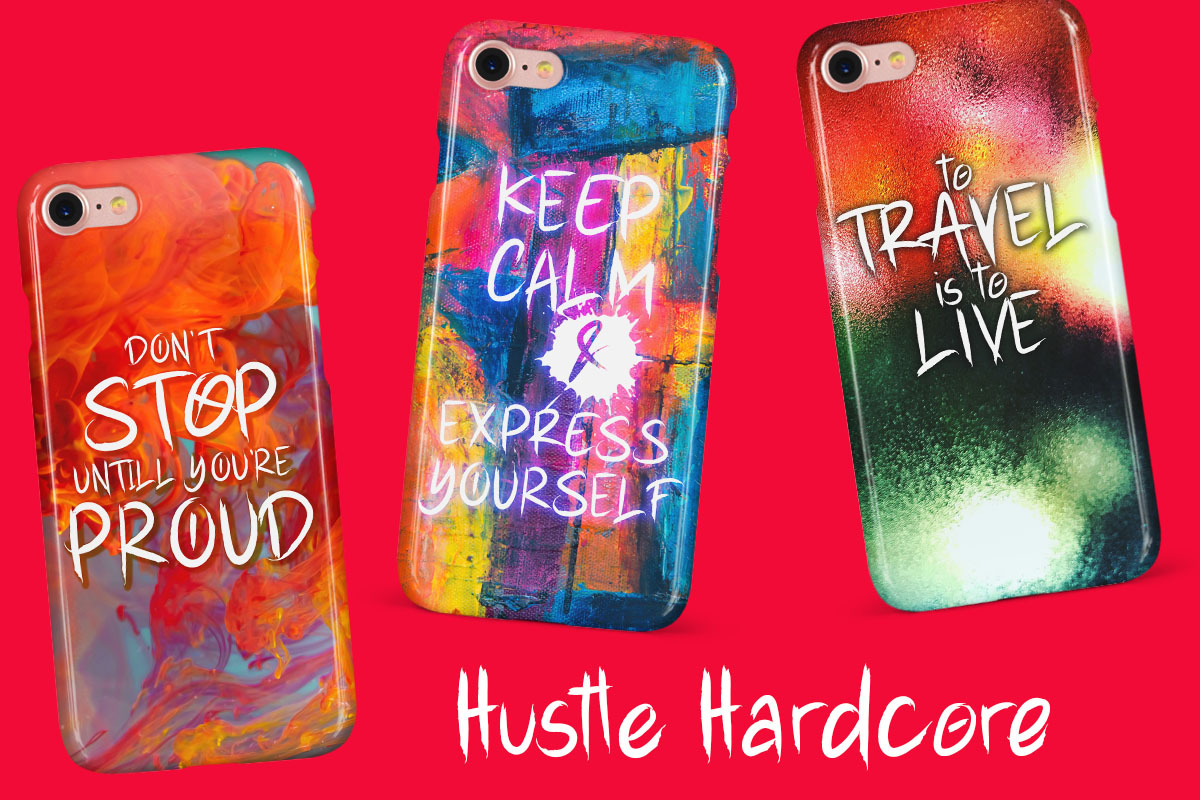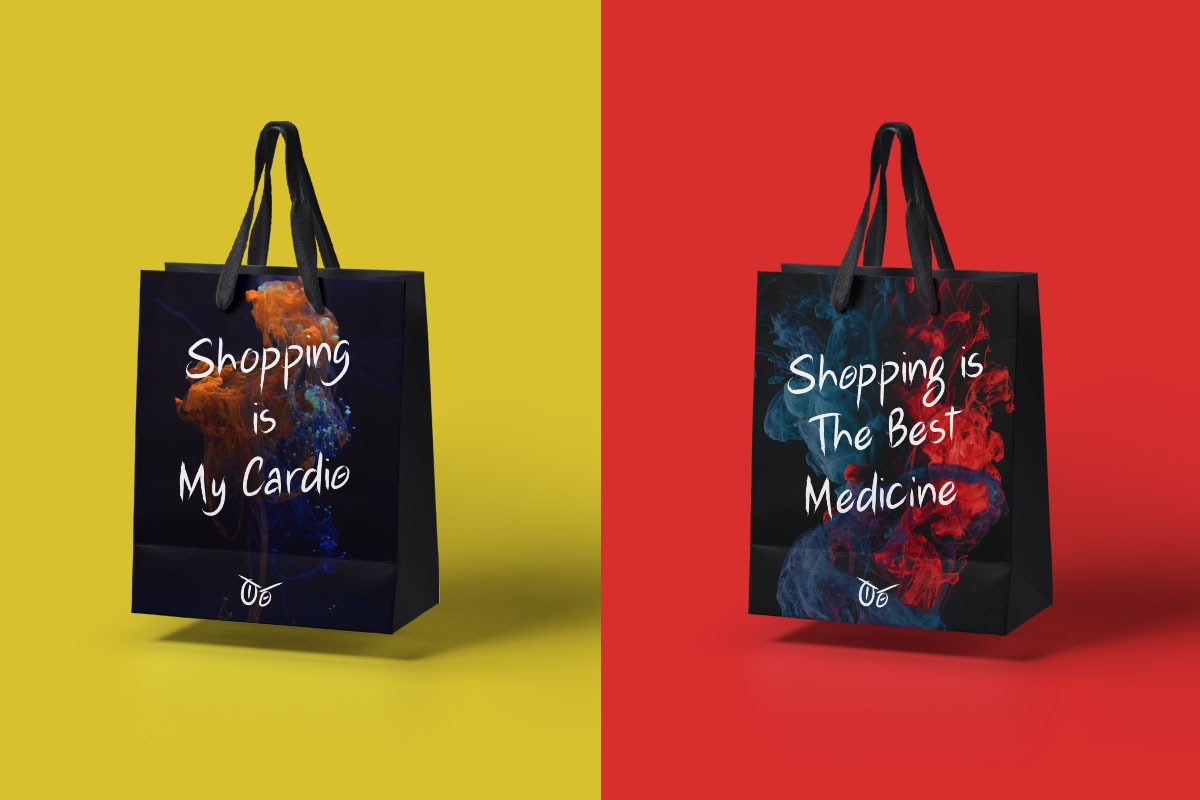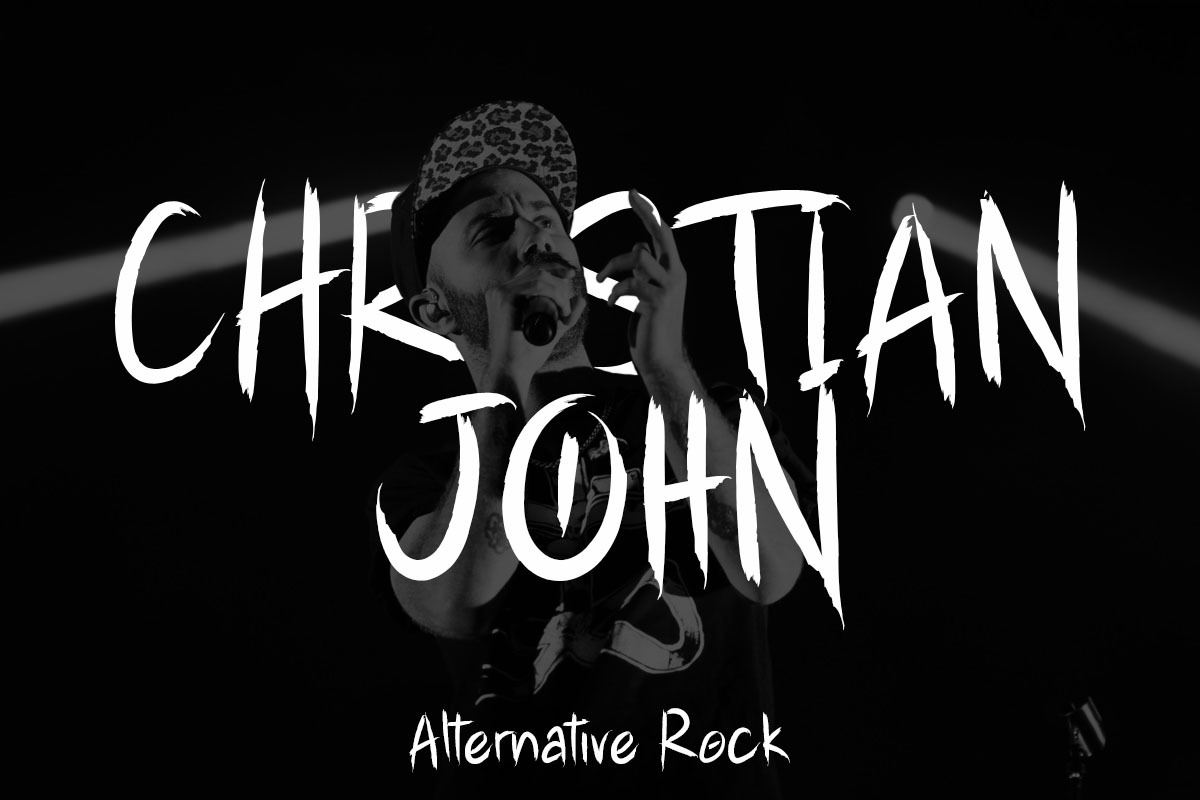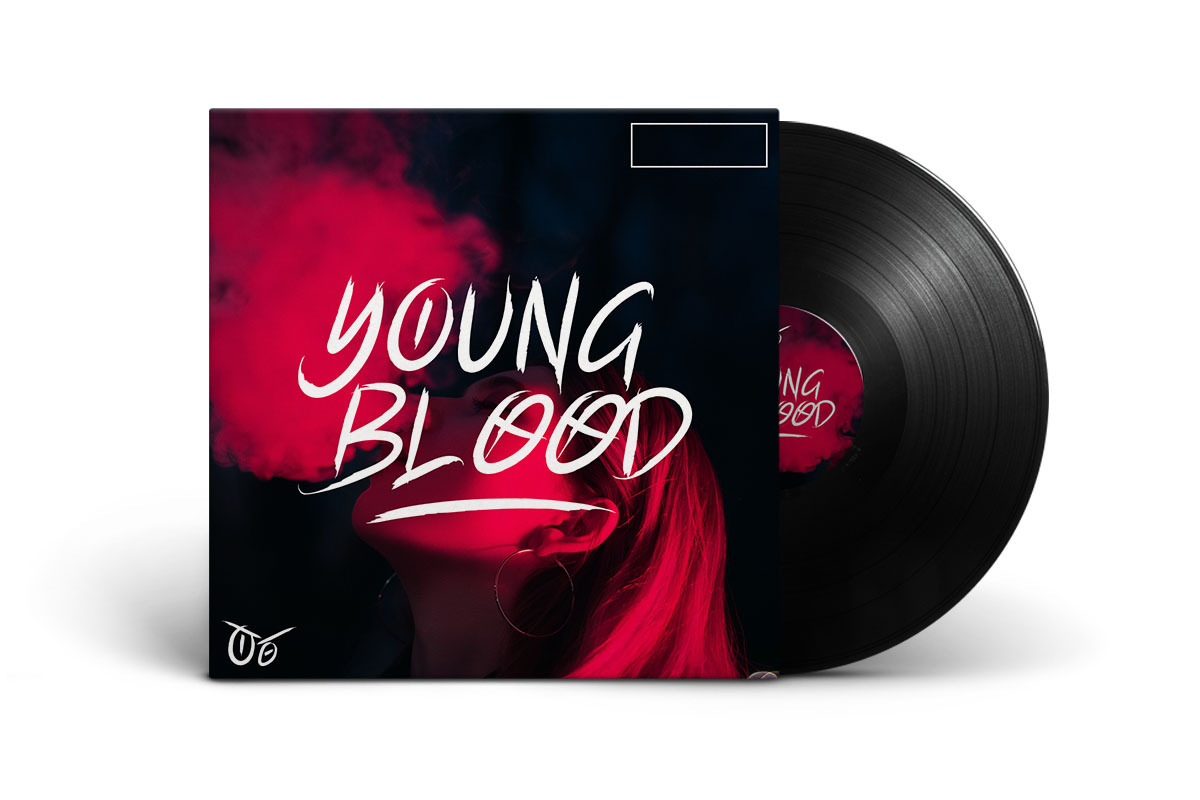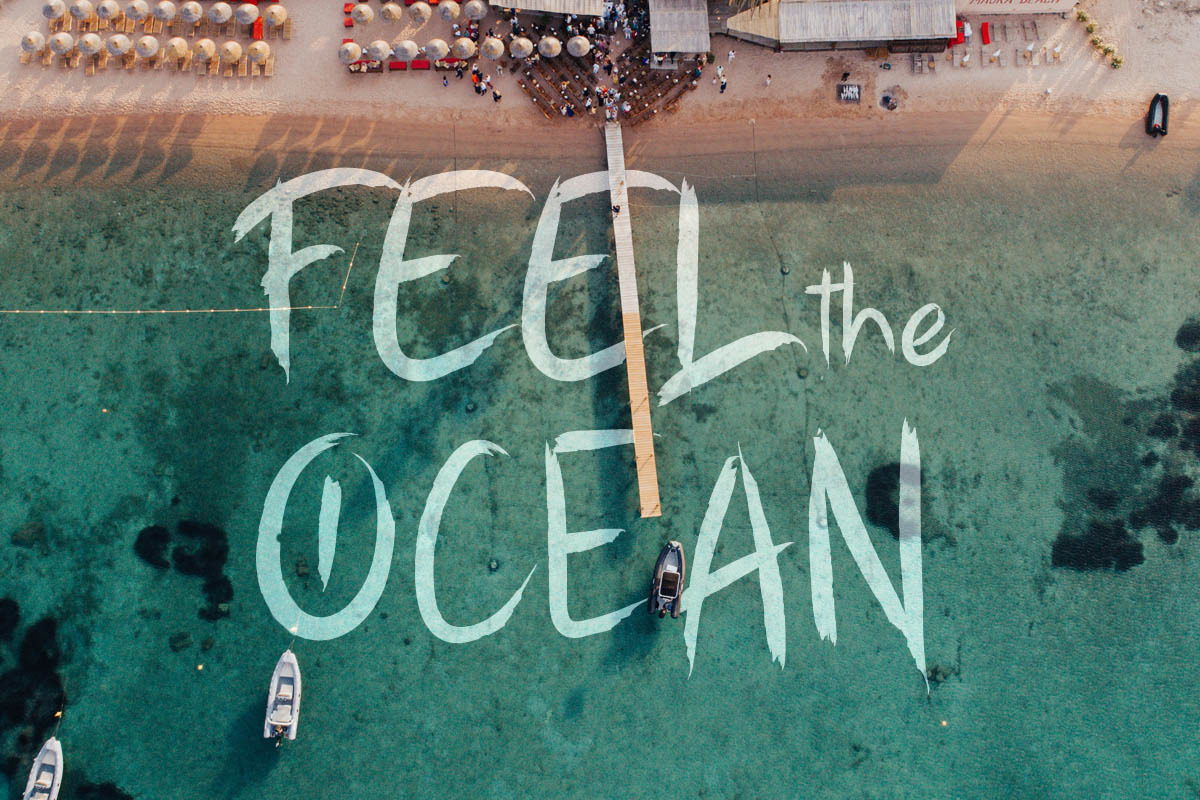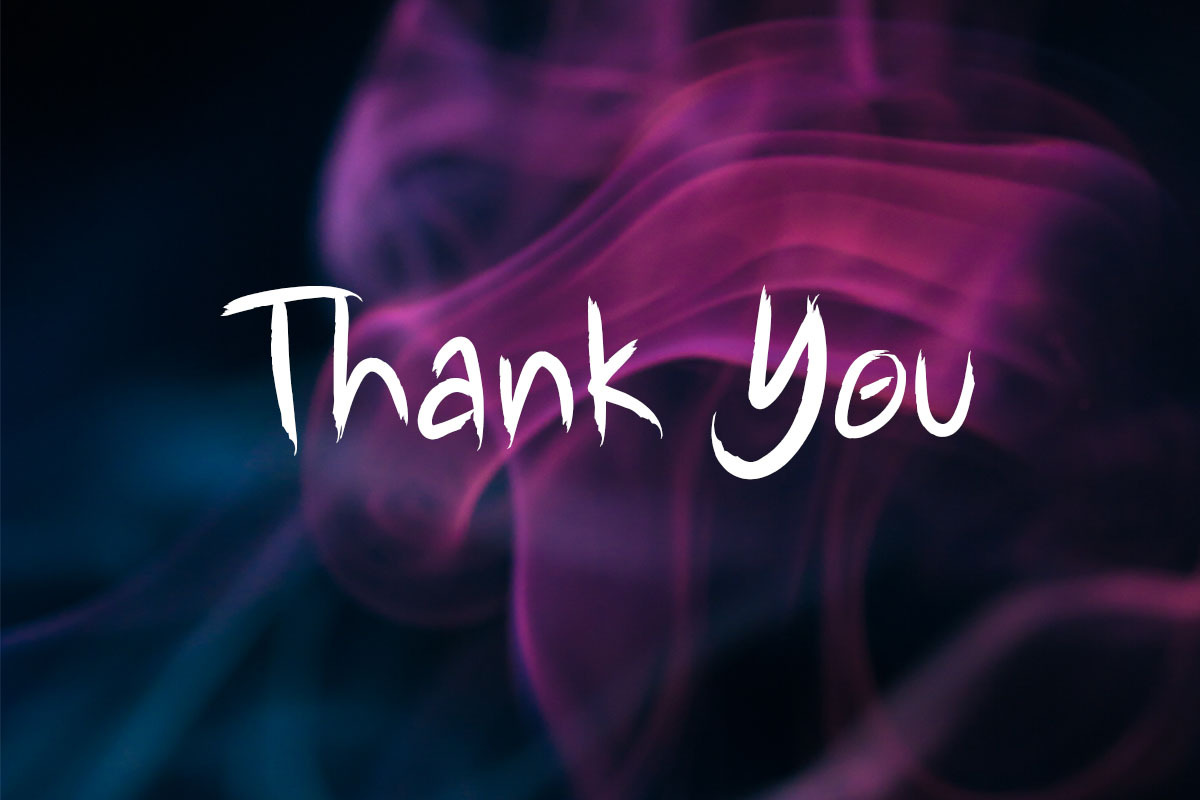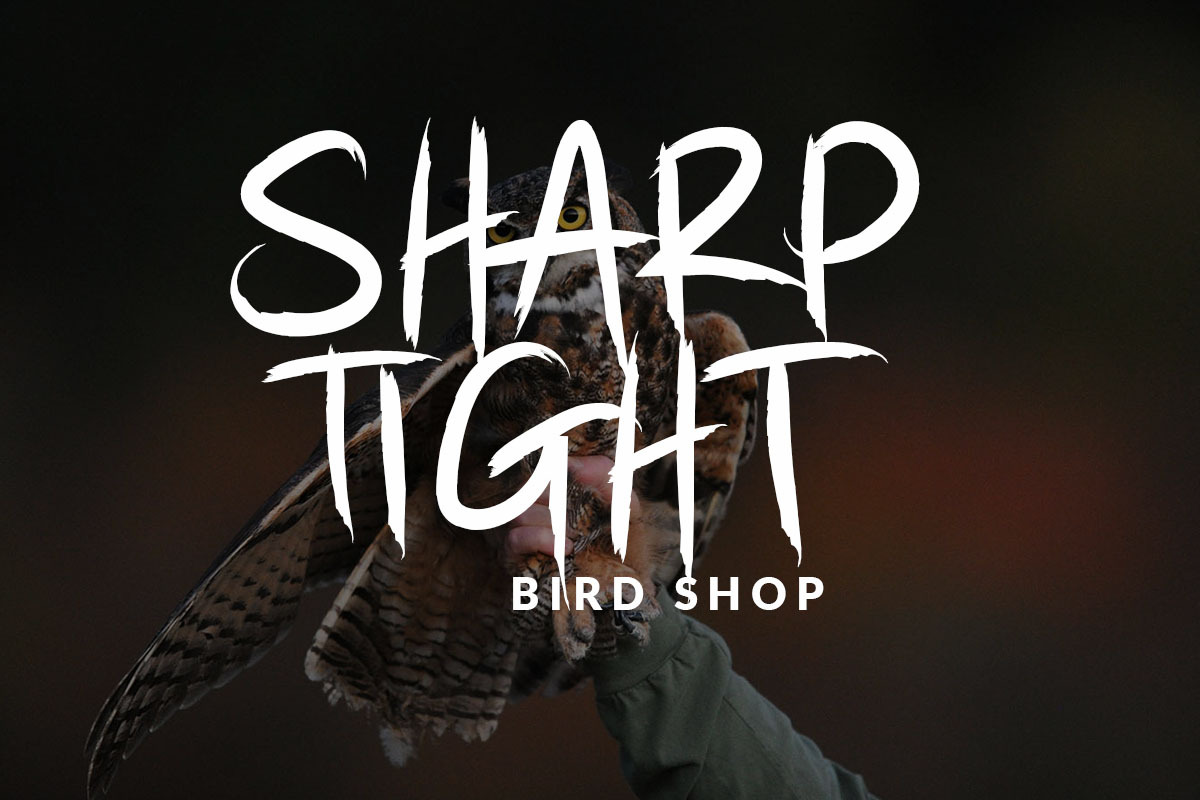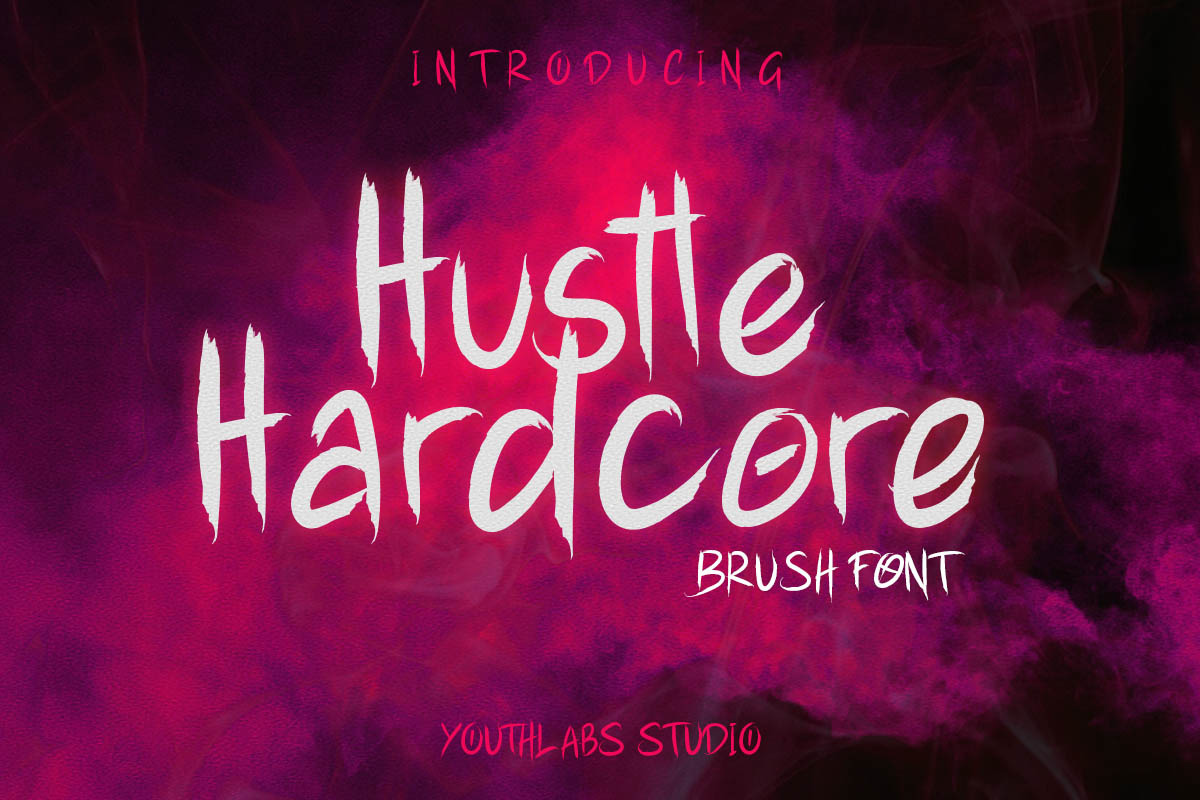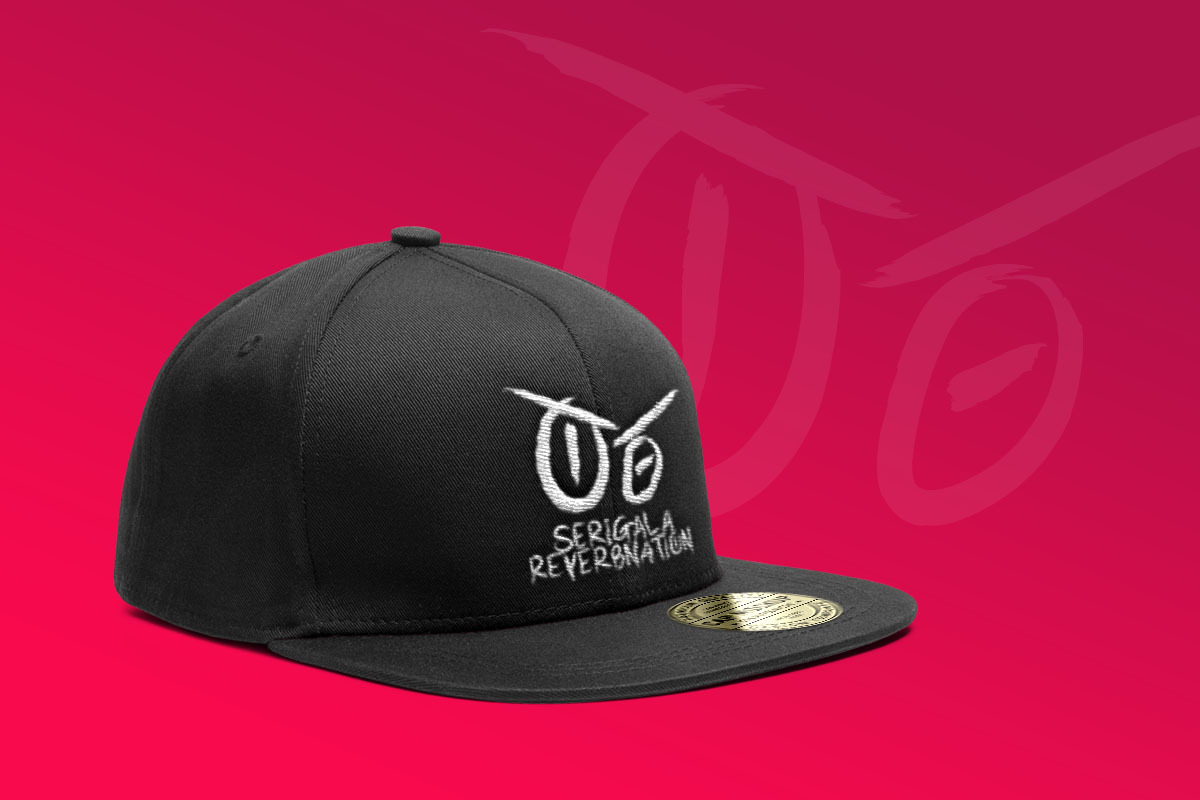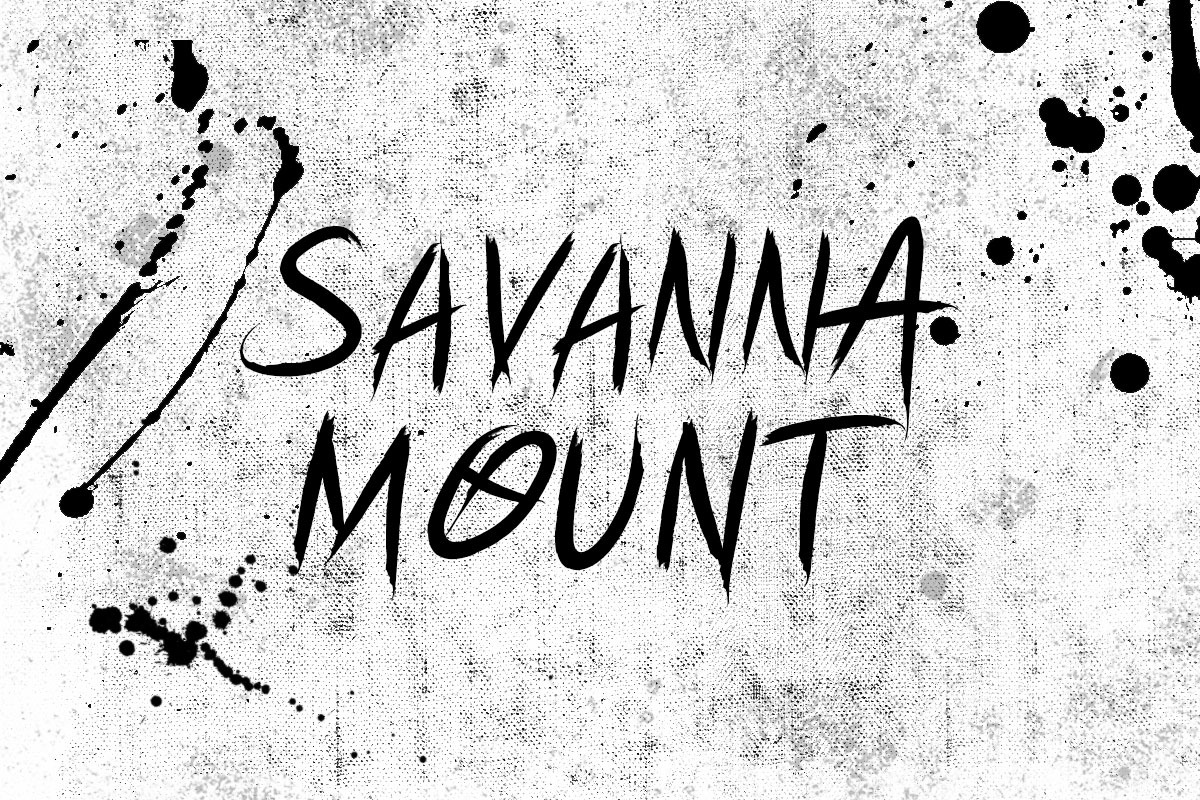
Hustle Hardcore - Brush Font
Introducing Hustle Hardcore - Brush Font. A Fonts with shapes such as brush strokes are made in such a way that become fierce
Hustle Hardcore is made for design that require a fierce or ghothic style like Metal Band. but this font can also use in another various design project like Card, Apparel, Logotype, Book, Letter.
- Alternate Glyphs